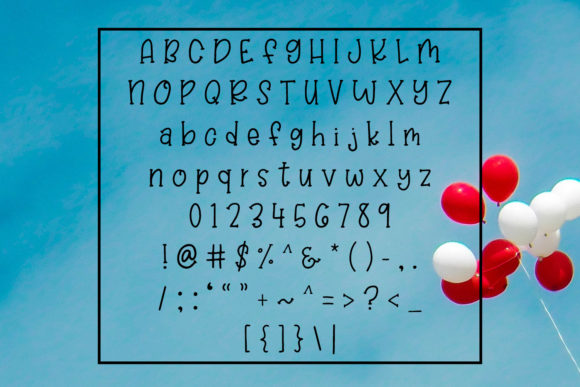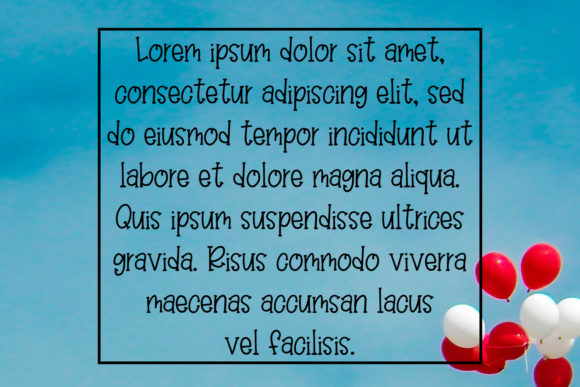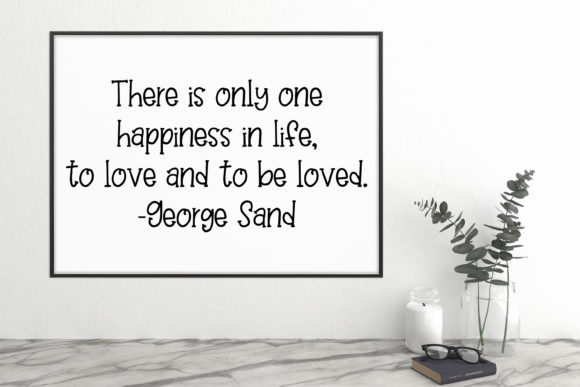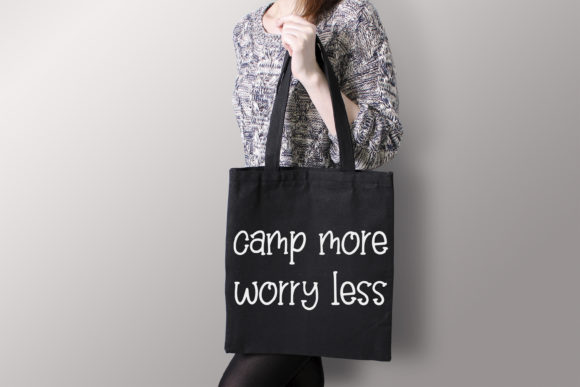
The Perfect Pop of Personality: Balloon Bash Font
Do you remember that moment when you stumbled upon the perfect font for your next design project? It’s like finding a hidden treasure, isn’t it? You’re scrolling through font libraries, and suddenly, a font catches your eye. It’s playful, it’s fun, and it’s exactly what you need to make your design stand out. For me, that moment came when I discovered the Balloon Bash Font – a hand-lettered serif font that’s perfect for adding a touch of whimsy to your designs.
Whether you’re creating a wooden sign for a birthday party or a kid’s t-shirt, the Balloon Bash Font is an excellent choice. Its playful personality and unique style make it valuable for designers who want to add a bit of personality to their work. With the Balloon Bash Font, you can create designs that are both fun and professional, making it a must-have in your font library.
- Font Family: A unique, playful font designed to evoke a sense of celebration and joy.
- Unique Characteristics: Features a distinctive, hand-drawn feel with exaggerated letterforms and whimsical flourishes, adding a touch of personality to any design.
I recently had the chance to work with the “Balloon Bash Font” and I must say it’s a unique and playful addition to any design project. ✨ The font’s rounded edges and bubbly texture make it perfect for creating whimsical and child-friendly designs.
- Works well for: Children’s book covers, party invitations, and social media graphics.
- Great for: Creating a sense of excitement and energy.
- Perfect for: Brands targeting a younger audience.
However, there are some limitations to consider. ⚠️ The font may not be suitable for professional or formal designs, as it can come across as too playful or immature. Additionally, the font’s rounded edges can make it difficult to read at smaller font sizes.
Overall, I think the “Balloon Bash Font” is a great addition to any designer’s toolkit. While it may have some limitations, its unique personality and versatility make it a valuable asset for creating fun and engaging designs.
Use Balloon Bash Font to create playful and whimsical designs.
Combine with bright colors and bold graphics for a festive look.
Use Balloon Bash Font for:
Party invitations and decorations.
Children’s birthday cards and party favors.
Whimsical greeting cards and gift tags.